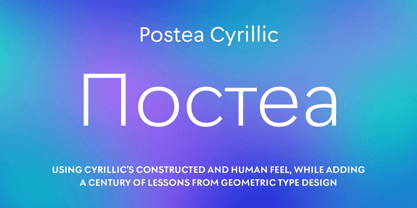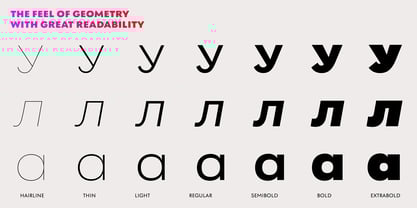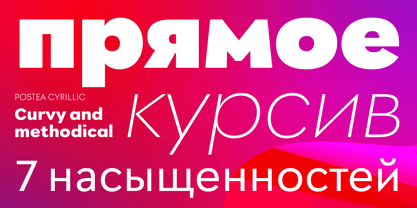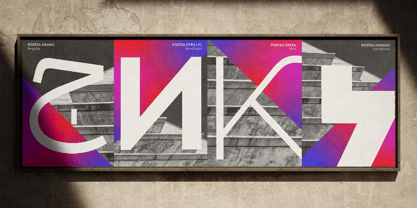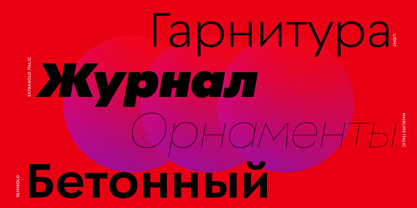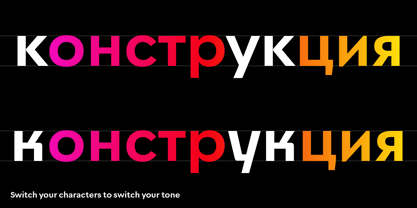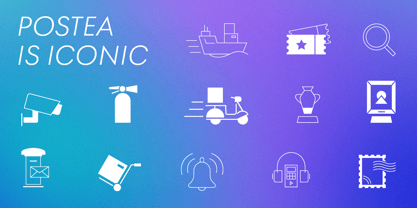
Postea Cyrillic
by TypeTogether
The Postea Cyrillic Font Family was designed by Veronika Burian, José Scaglione, Vera Evstafieva and published by TypeTogether. Postea Cyrillic contains 16 styles and family package options. More about this family
The Postea font family is Veronika Burian and Jose Scaglione’s take on German geometric typefaces, reshaped as Postea Cyrillic by Tom Grace and Vera Evstafieva, with the right attributes for setting paragraphs and headings, and perfect for branding and text use. The classic curves and purposeful details keep its individuality intact while allowing it to fit an incredible range of multiscript design needs. Because of these qualities, Postea Cyrillic makes normal reading in paragraphs a cinch and your branding memorable.
Compared to midcentury attributes of restraint and a sparse appearance, Postea Cyrillic’s deliberate play between character widths injects liveliness and distinction into its personality. Another nice surprise awaits: spacing for the Hairline weight is tighter for optimal use in large headings and titles, while the regular weights have the slightly looser spacing readers require for text.
Postea Cyrillic is opinionated and has modern stylistic sets with softer, specially-designed alternate characters. Wallpaper-worthy geometric symbols, arrows, and ornaments are packed into SS01 and SS09. For the ultimate in customisation and glamour, the second and third stylistic sets are where geometric and typographic alternates are found.
Postea’s 14 styles (seven upright and italic) and two variable fonts are accompanied by an all-new family of icons in three weights, for which we developed a new, easy activation method. Simply bookend the desired icon name with colons (:arrowUp: :firstAid: :aid: :chargingStation:), making sure to capitalise each word after the first word, then select it and activate SS10. Icons include wayfinding, social interface, and sanitary precautions like face masks, thermometers, hand washing, and with much more.
Postea Cyrillic is resilient in the number of ways the family can be used, and its recognisable characters make it a prime selection for branding, signage, corporate typefaces, and magazines. The entire multiscript family (Arabic, Cyrillic, Greek, Hebrew, and Latin, now including Vietnamese) brings simplicity and impact together nicely, invoking a balance between a constructed and human feel while brushing away the dust from a century of derivatives. Beginning with midcentury virtues, Postea Cyrillic is the rational response for text — a lyrical take on geometric sans serifs.
Designers: Veronika Burian, José Scaglione, Vera Evstafieva
Foundry: TypeTogether
Postea Cyrillic